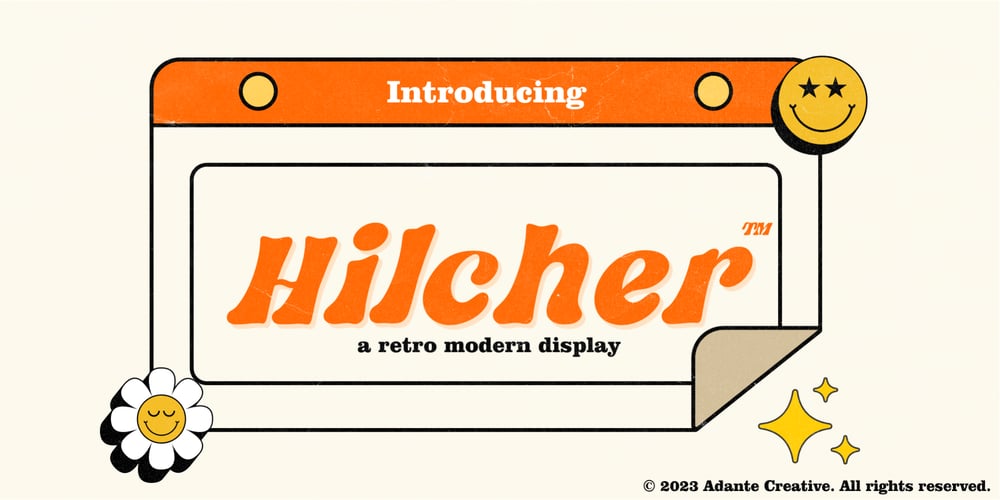
Hilcher Font Family was designed by Yanto Suheri and published by Adante Creative. Hilcher contains 1 styles and family package options. Introducing by Adante.CreativeProudly Present, Hilcher is A Retro Modern Display FontHilcher is perfect for product packaging, branding project, megazine, social media, wedding, or just used to express words above the background.Hilcher also multilingual support.Enjoy the font, feel free to comment or feedback, send me PM or email.